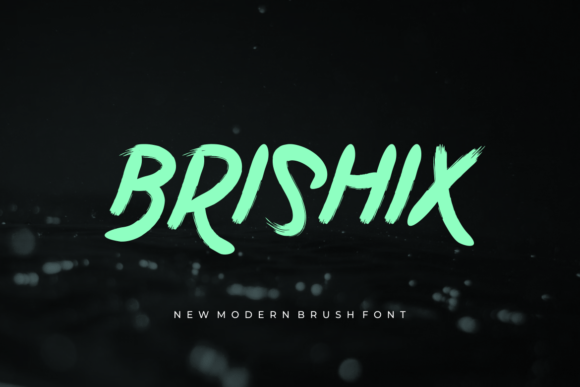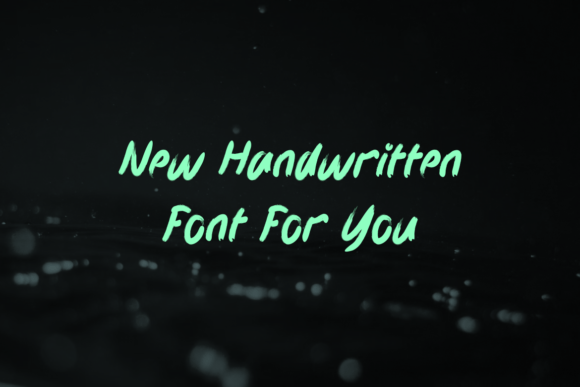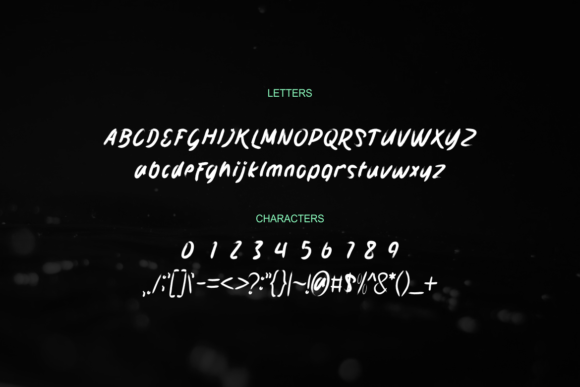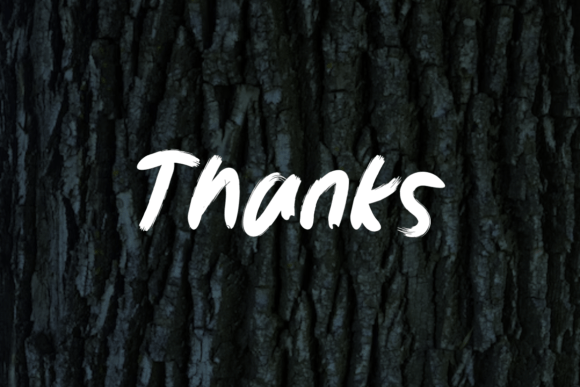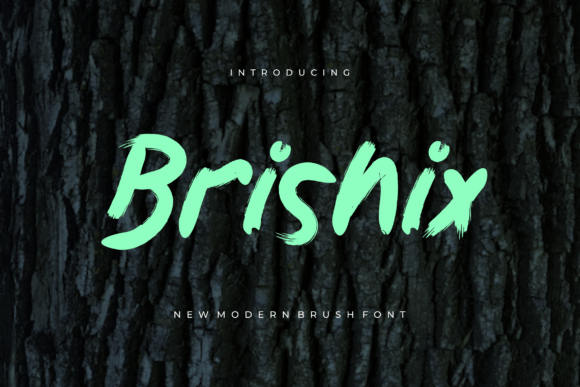
Introducing Brishix Font: The Ultimate Brush Font for Creative Projects
Are you tired of using the same old fonts for your creative projects? Look no further than Brishix Font, a stylish and modern brush font that’s sure to make your text stand out. With its unique, hand-painted look, Brishix is perfect for designers, crafters, and artists who want to add a touch of personality to their work.
What is Brishix Font?
Brishix is a brush font that mimics the look of text written with a paintbrush. Its bold, expressive strokes and irregular texture give it a fun and artistic feel that’s perfect for creative projects. Whether you’re designing a poster, logo, or invitation, Brishix is sure to add a touch of whimsy and personality to your text.
Key Features of Brishix Font
- Unique, hand-painted look: Brishix has a distinctive, hand-painted look that’s sure to make your text stand out.
- Modern and stylish: Despite its hand-painted look, Brishix is a modern and stylish font that’s perfect for contemporary designs.
- Perfect for creative projects: Brishix is ideal for designers, crafters, and artists who want to add a touch of personality to their work.
Uses for Brishix Font
Brishix is a versatile font that can be used for a wide range of creative projects, including:
- Posters and flyers: Add a bold, eye-catching headline to your poster or flyer with Brishix.
- Logos and branding: Use Brishix to create a unique and memorable logo for your business or brand.
- Invitations and cards: Add a touch of personality to your invitations and cards with Brishix.
- Social media graphics: Use Brishix to create eye-catching social media graphics that will help your content stand out.
Tips for Using Brishix Font
Here are a few tips for getting the most out of Brishix:
- Use it sparingly: Because Brishix is a bold font, it’s best to use it sparingly to avoid overwhelming your design.
- Pair it with a simple font: Pair Brishix with a simple font to create contrast and make your design more readable.
- Experiment with colors: Brishix looks great in a variety of colors, so don’t be afraid to experiment and find the perfect hue for your design.